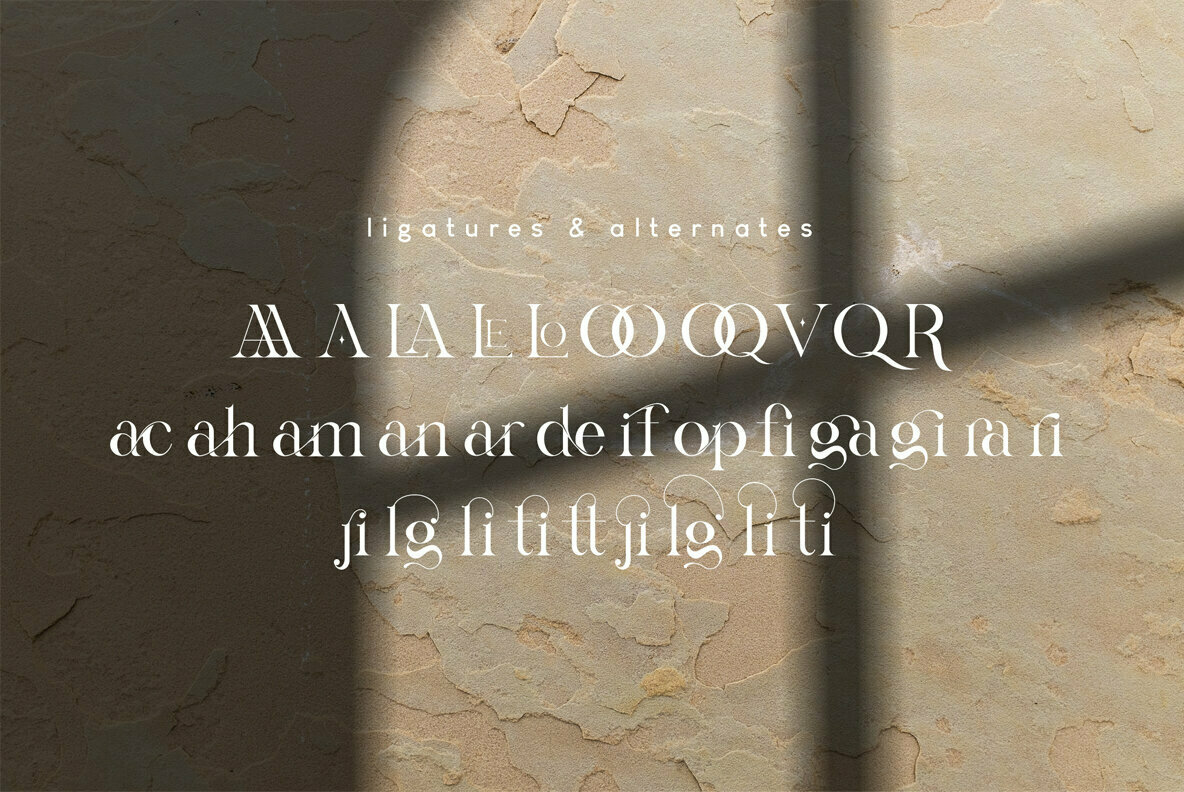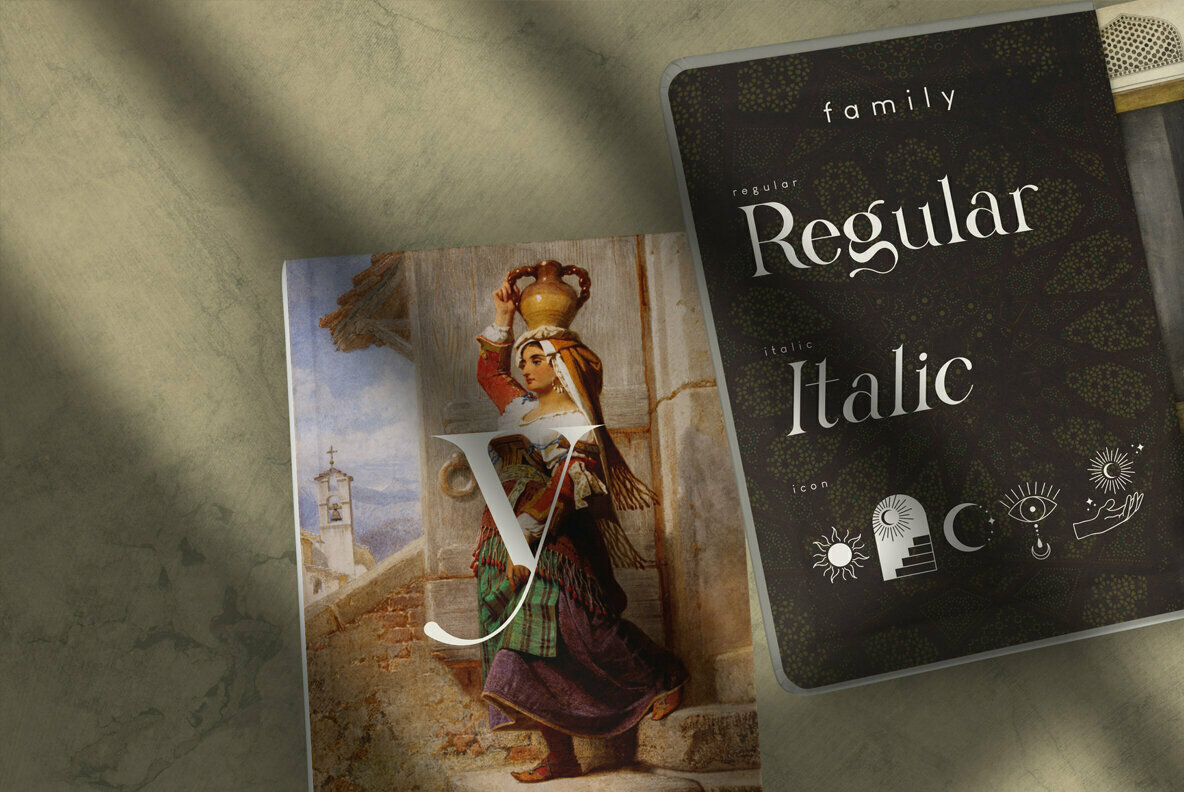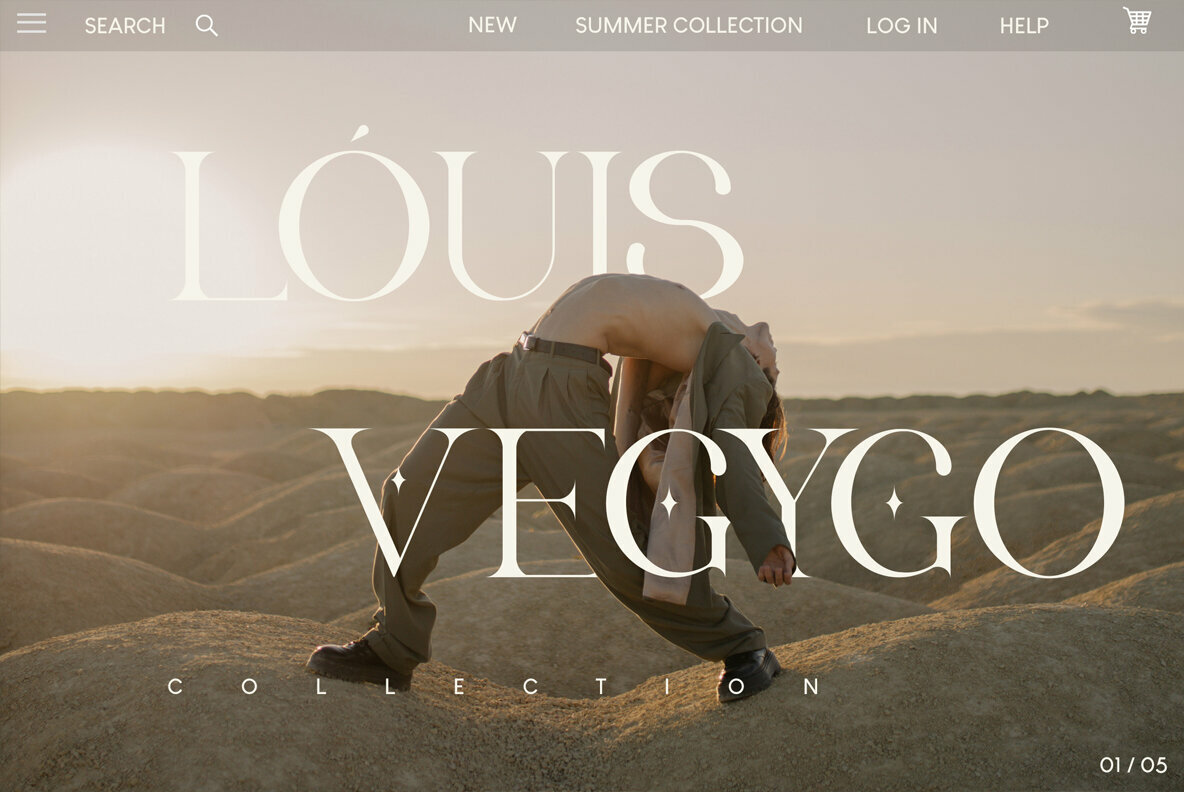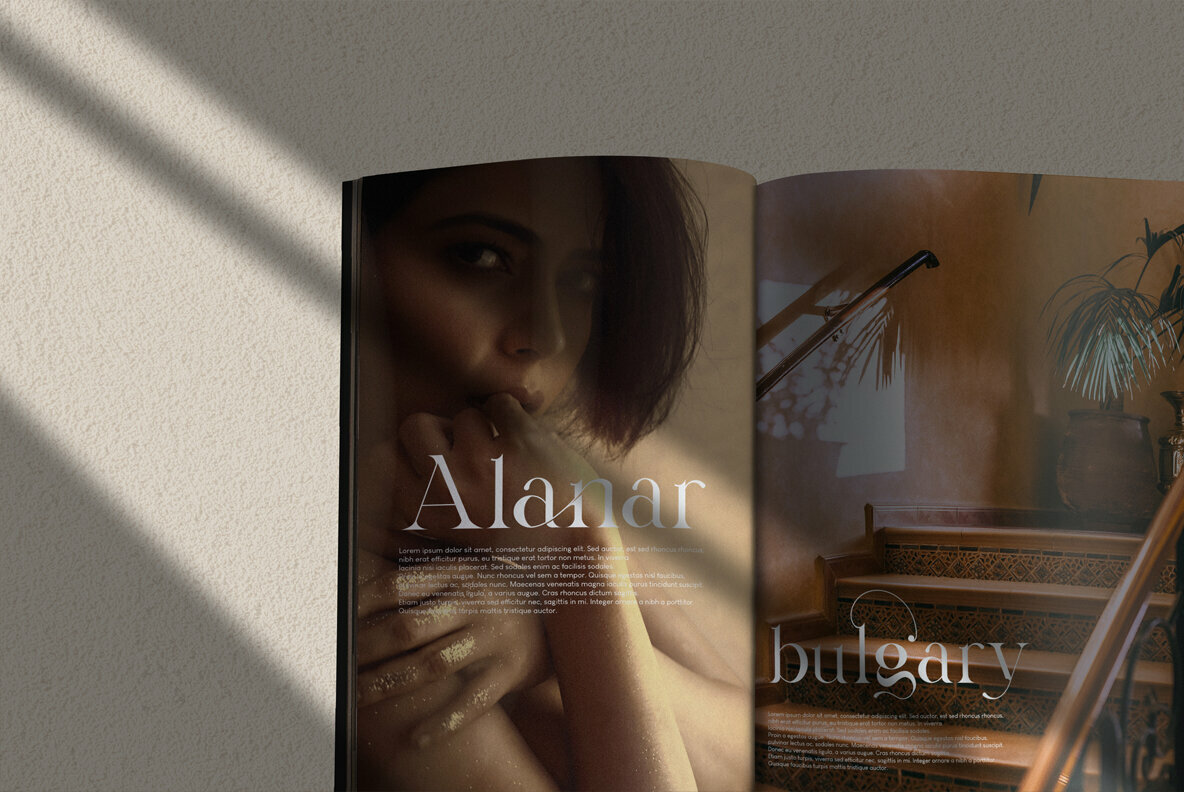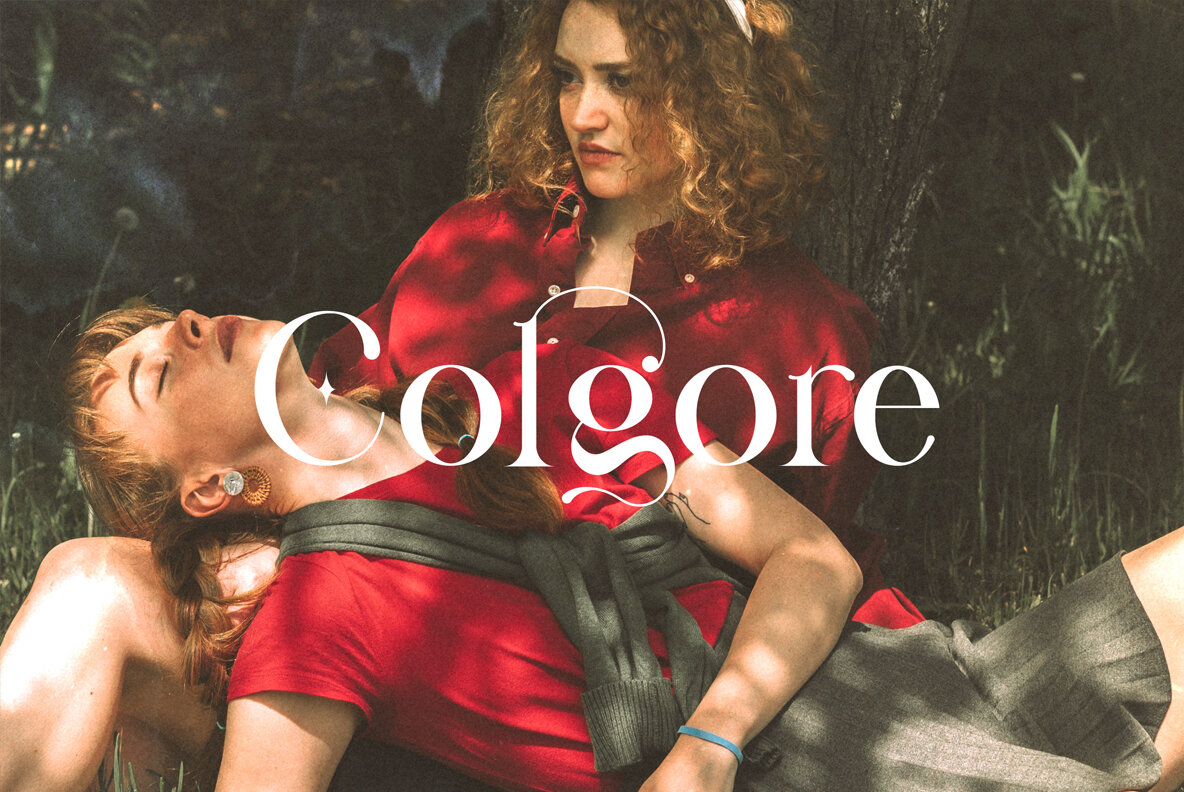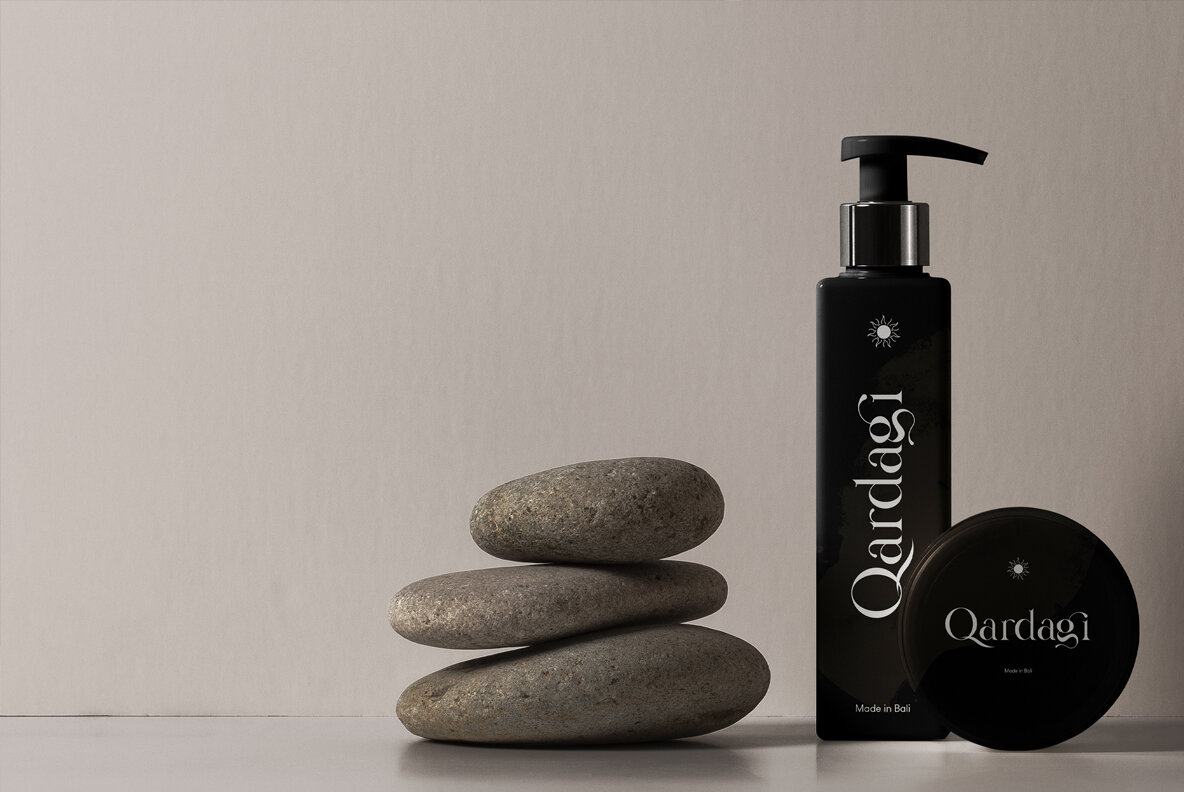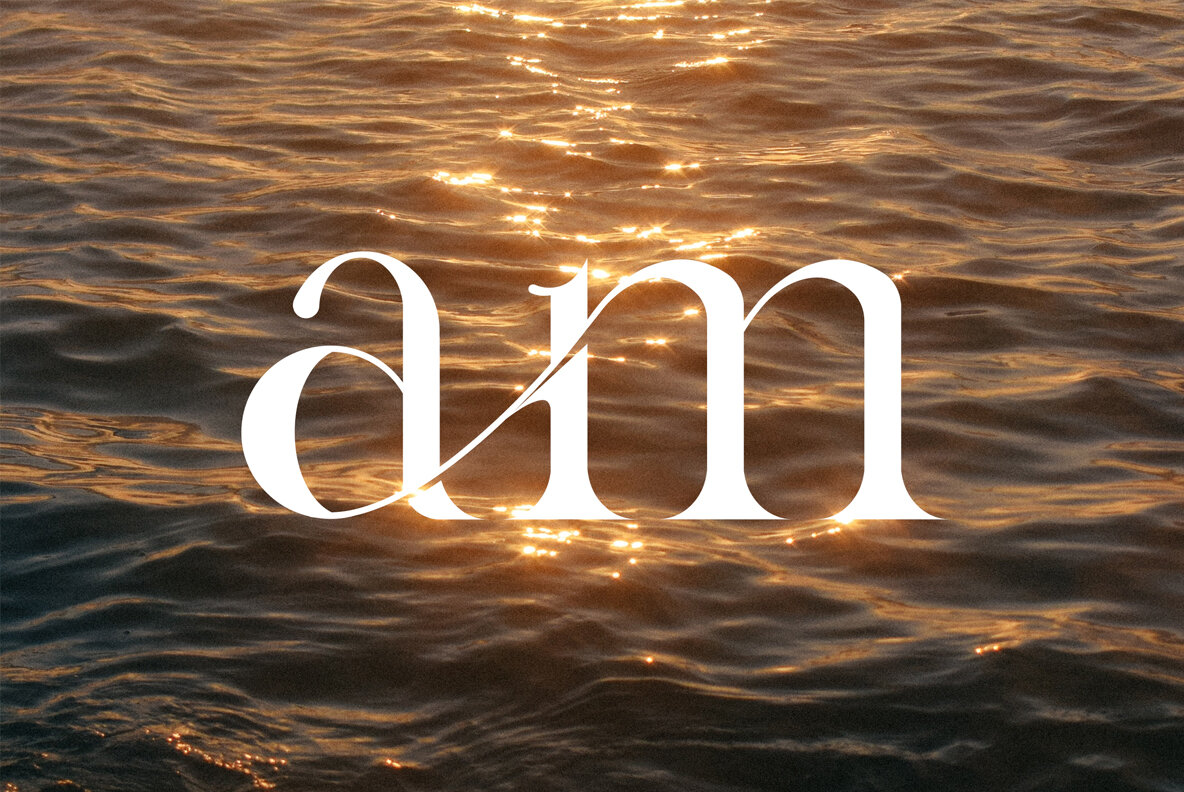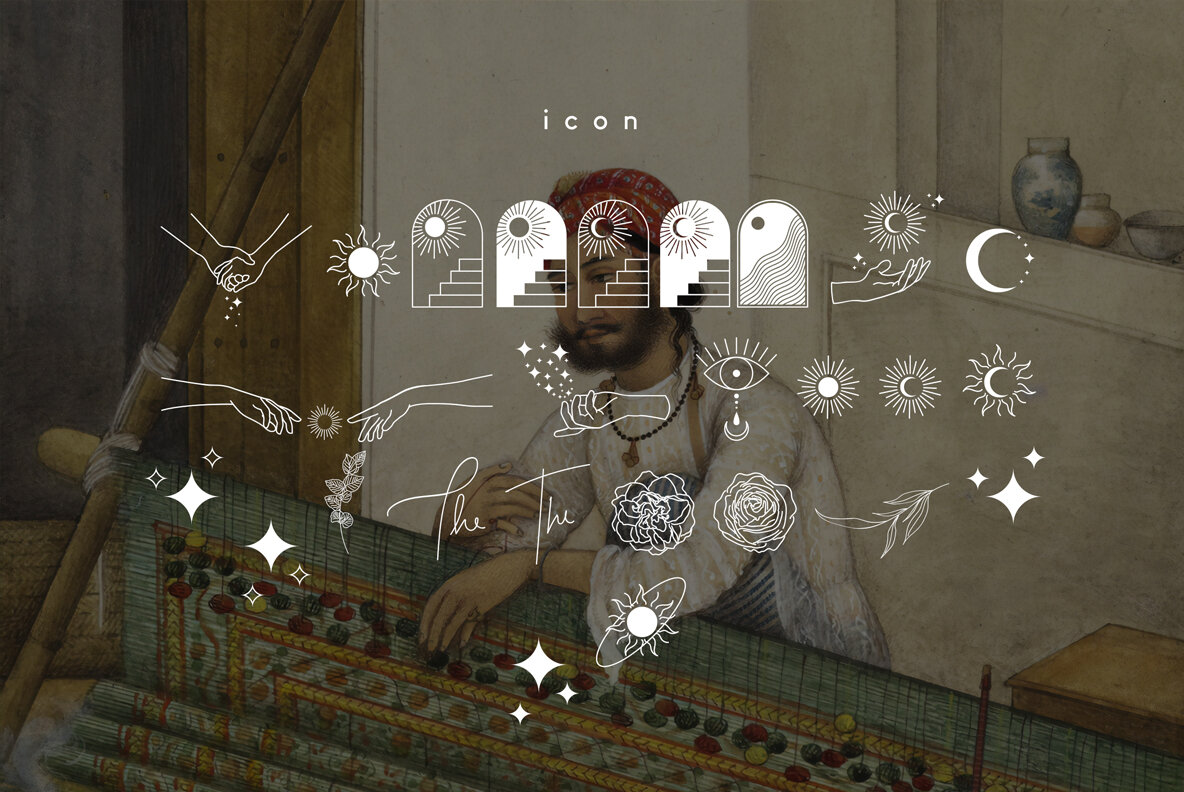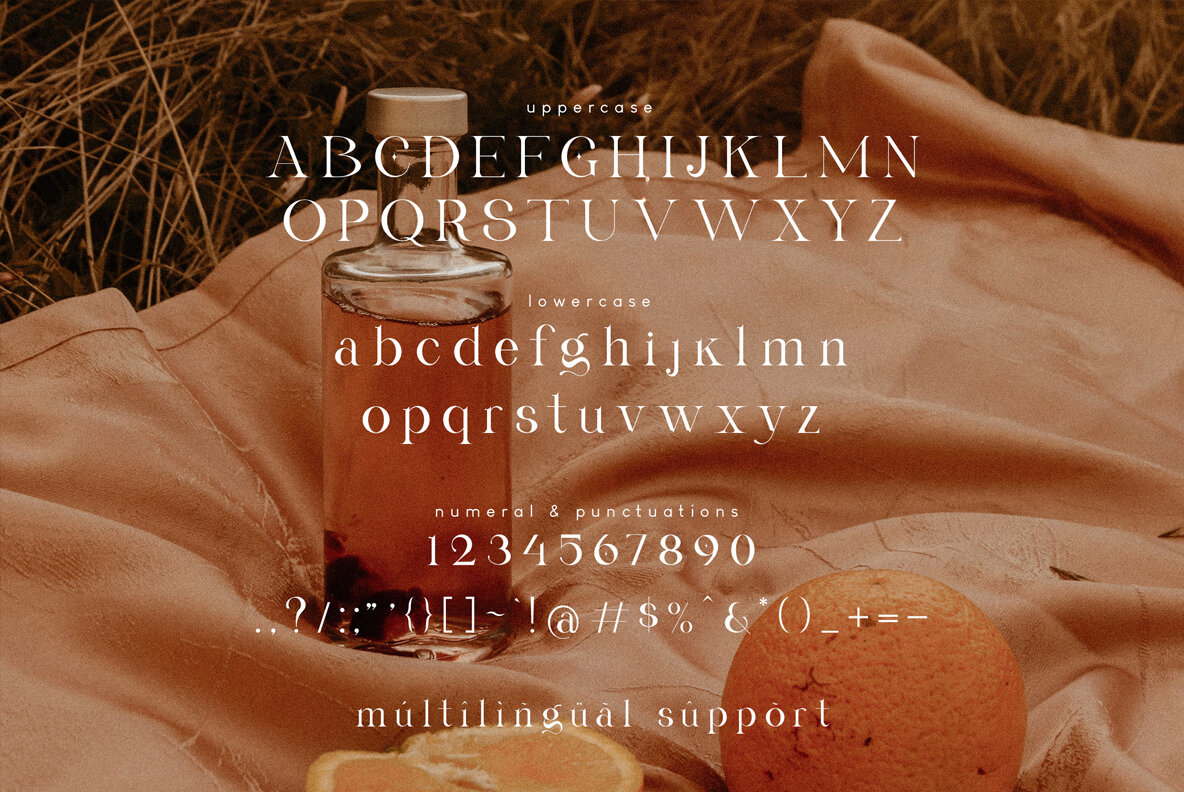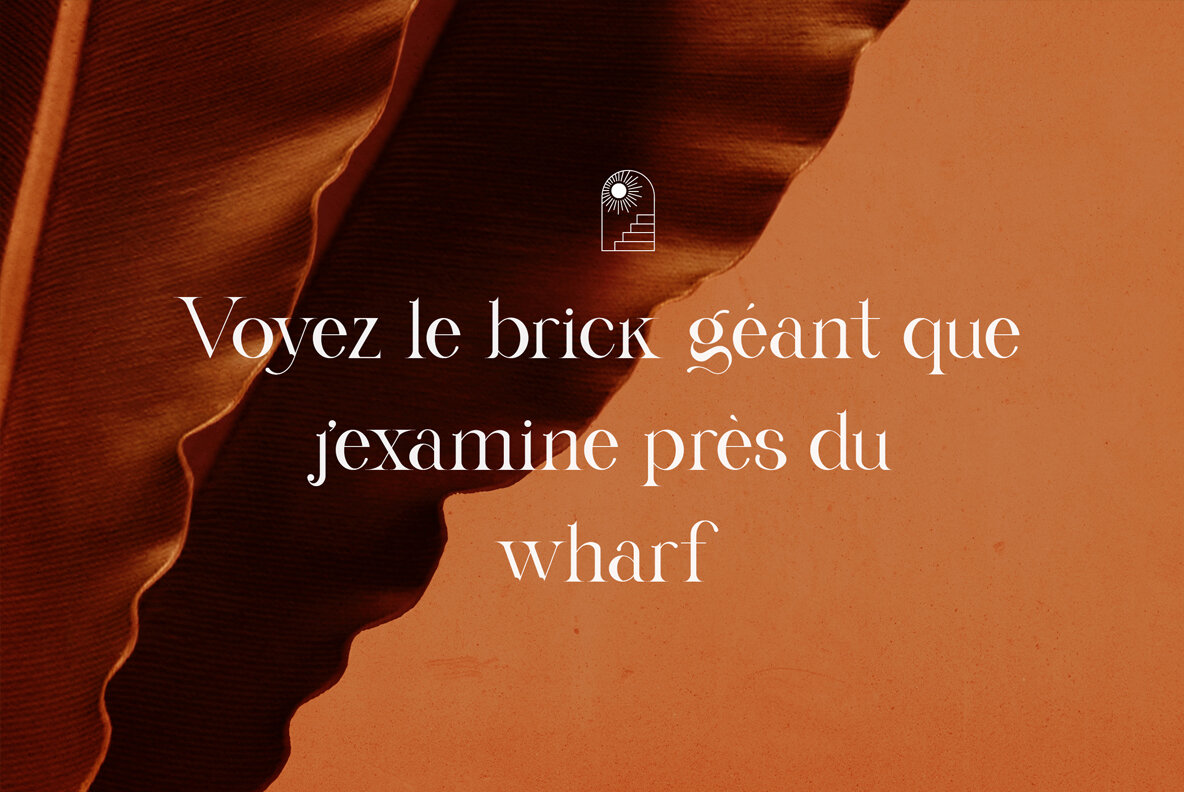
Gyahegi Font
Gyahegi is a modern serif font that looks elegant and aesthetic with beautiful ligatures. It's a great design choice for logos, advertisements or product packaging projects.